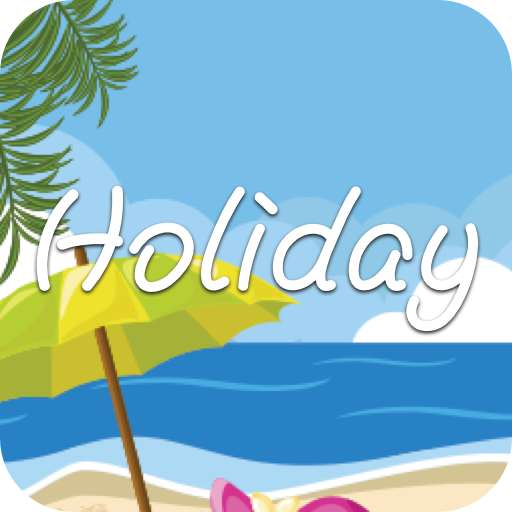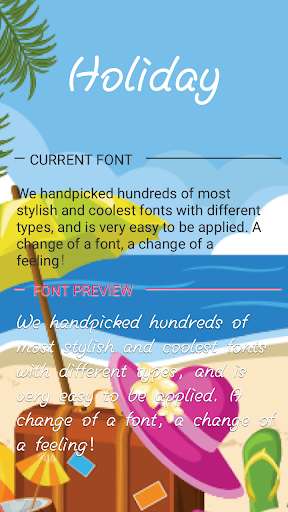
Hoilday allows all users to change the system font of your phone or tablet .
You can find the amazing and perfect font style which fits your taste well.
Change your entire phone font into Hoilday.
Come and experience the customized font for you.
The feature of Hoilday is compatible ability.
Lovely, sweet and colorful as you wish.
Hundreds of selected fonts style from handwritten fonts like Hoilday, such as cute, darker, comic, galaxy, love, pink, sexy written, colorful fonts, clean fonts, candy fonts, etc.